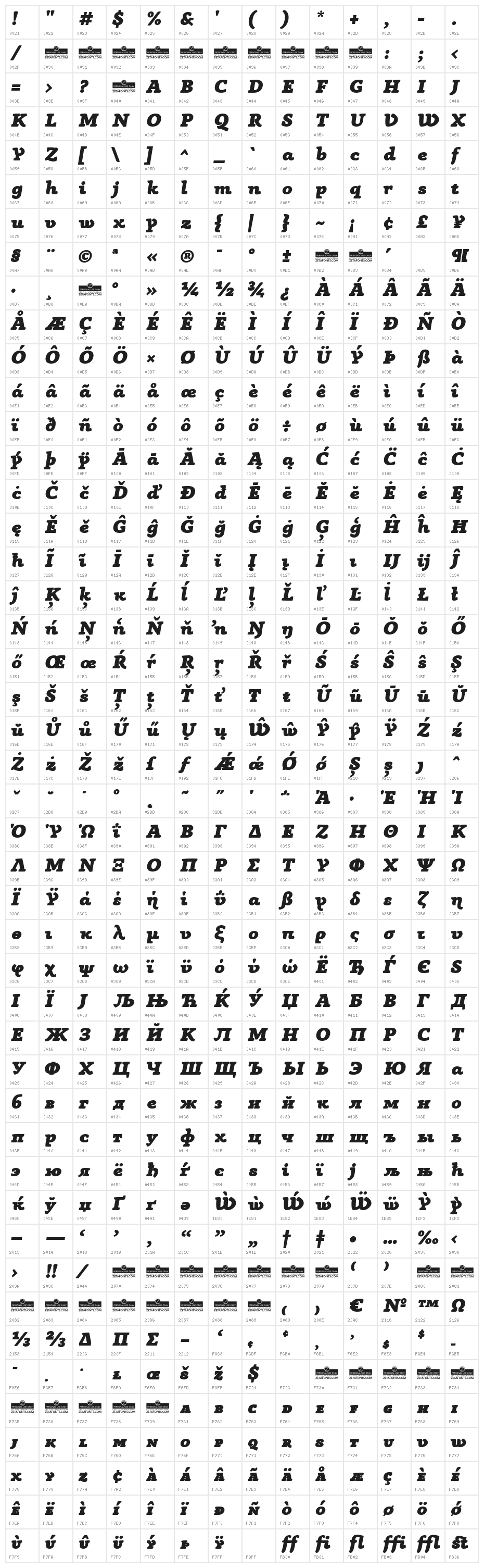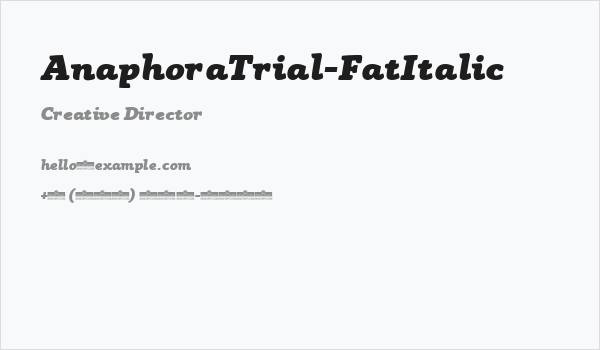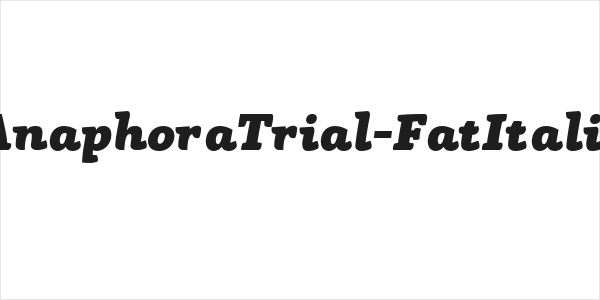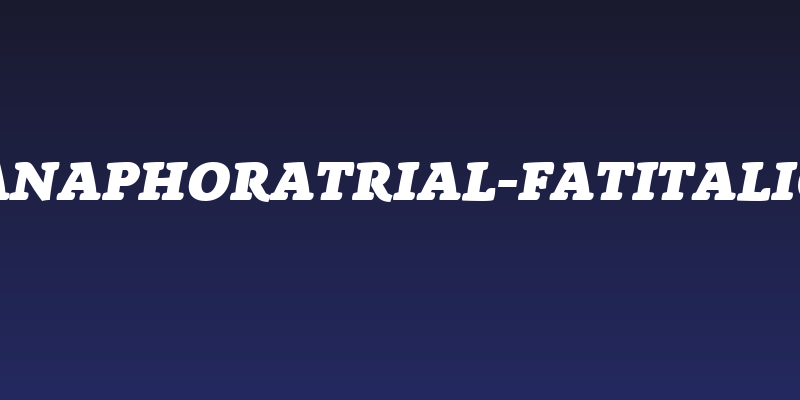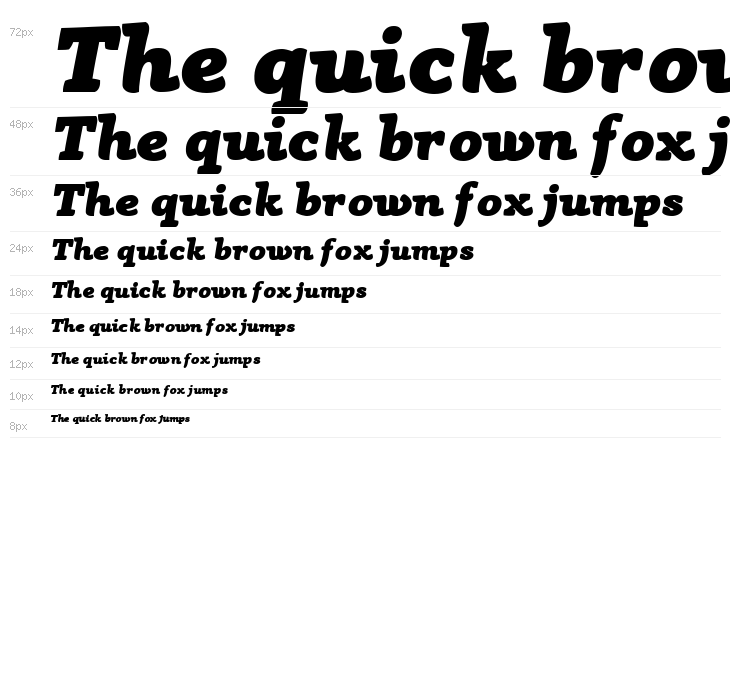
AnaphoraTrial-FatItalic Font
AnaphoraTrial-FatItalic Description
This font features a bold and italicized style with a strong presence. The characters are well-defined with a slight slant, giving them a dynamic and energetic feel. The uppercase letters are robust and commanding, while the lowercase letters maintain a consistent flow. The numerals and special characters are crafted to match the overall aesthetic, ensuring uniformity across all glyphs. The font's boldness and italic nature make it suitable for attention-grabbing designs.
| Proposed Projects | Ideal for headlines, posters, branding, and advertising where a strong and impactful typeface is needed. |